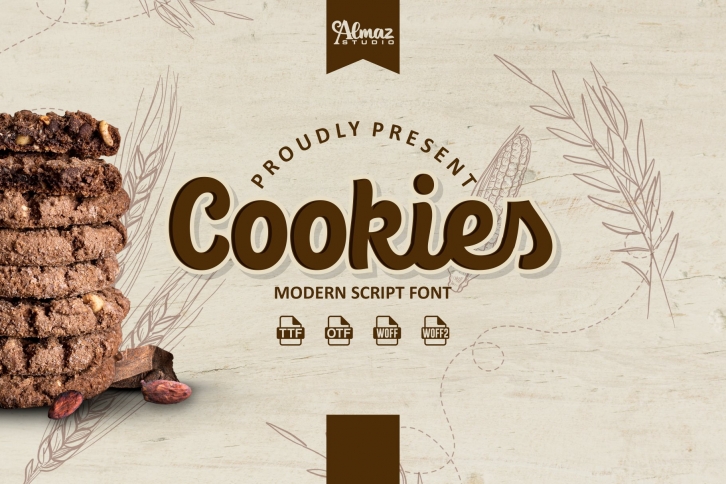
Cookies is a gorgeous font that was realeased on August 12, 2022. The font can be used in many style contexts and design environments. Perfect for invitations, magazines, websites, logos, and more! It was designed by Almaz Studio and the file size is 17.51 MB. Thanks for checking out this font!